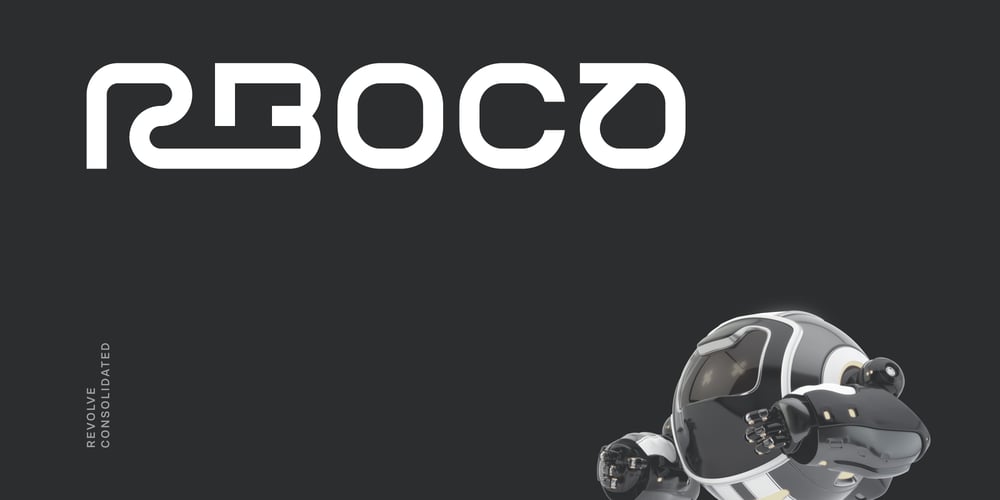
Rboca
Rboca font
Rboca Font Family was designed by Andrew Seah and published by Baqoos. Rboca contains 3 styles and family package options. Rboca is a revolve consolidated unicase sans apt for headline, editorial, branding, packaging, printed materials and typographic applications. 150+ glyphs with ligatures and fractions provided in opentype .otf and .woff format.